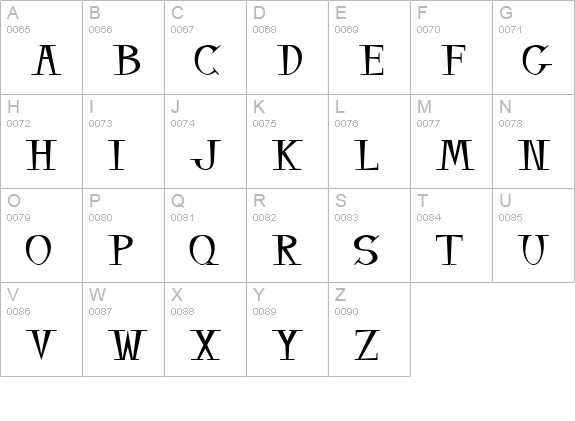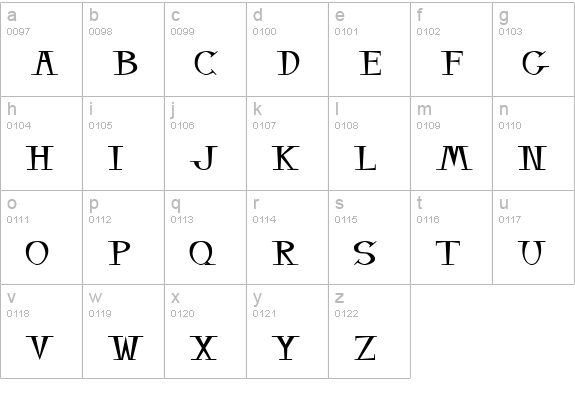
Balsamo™ font is a versatile and elegant typeface that exudes sophistication and charm. Its graceful curves and distinct letterforms make it perfect for a wide range of design projects, from branding to editorial design. The timeless appeal of Balsamo™ font makes it a popular choice for designers looking to add a touch of class to their work. What sets Balsamo™ font apart is not only its beauty but also its accessibility. This premium font is available for free download at FontsMarket.com, allowing designers to enhance their projects without breaking the bank. Whether you're working on a logo, website, or print material, Balsamo™ font is sure to elevate your design and make a lasting impression. Download this stunning typeface today and see the difference it can make in your creative projects.